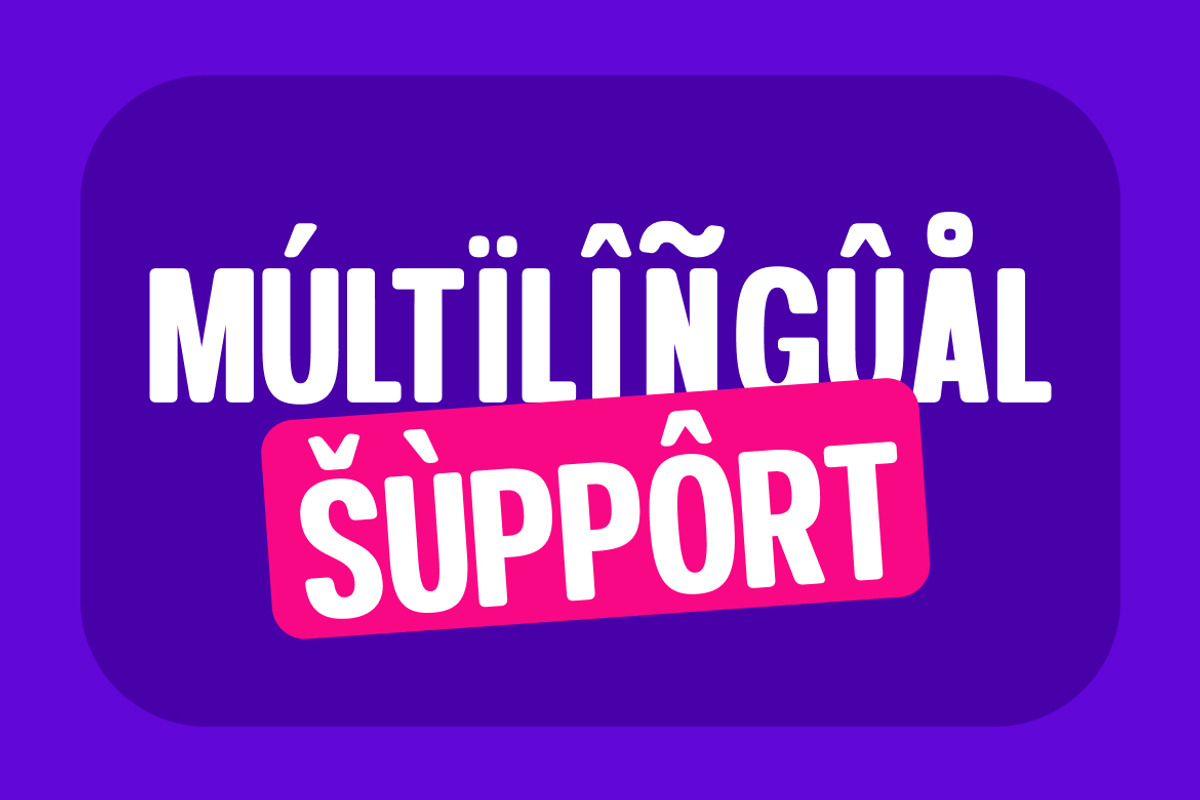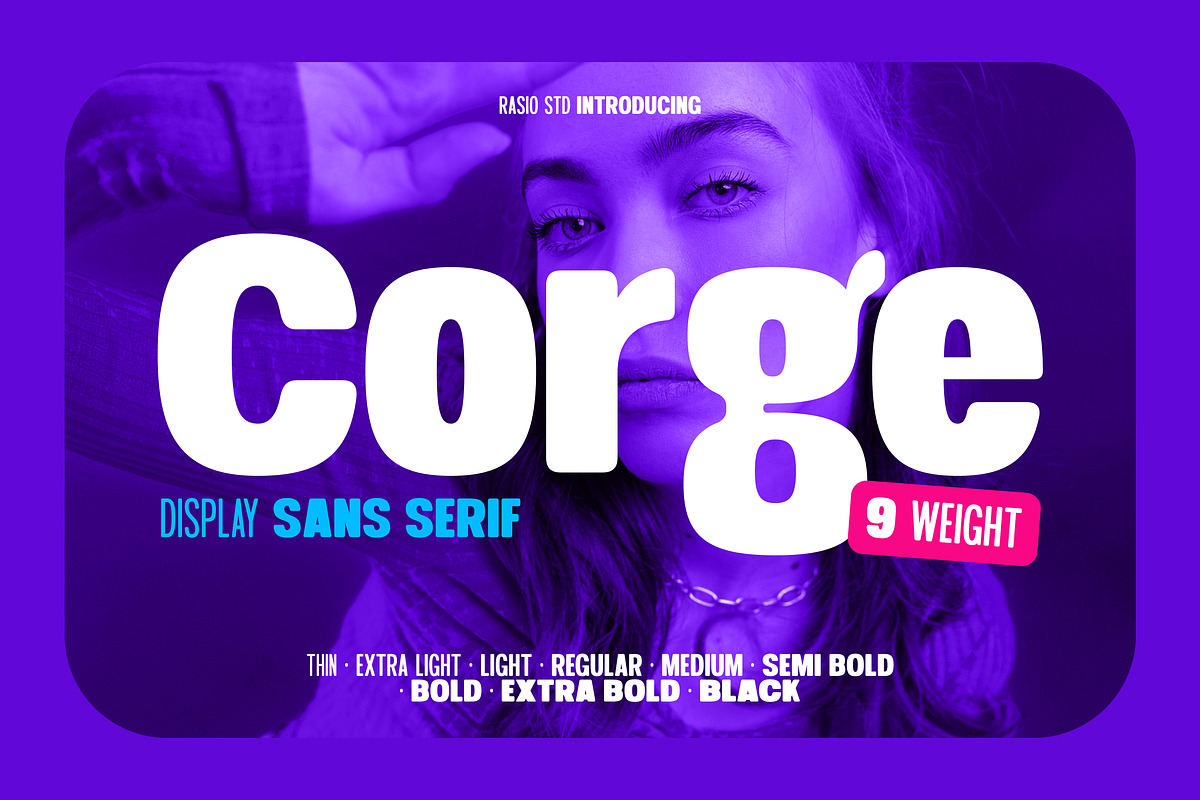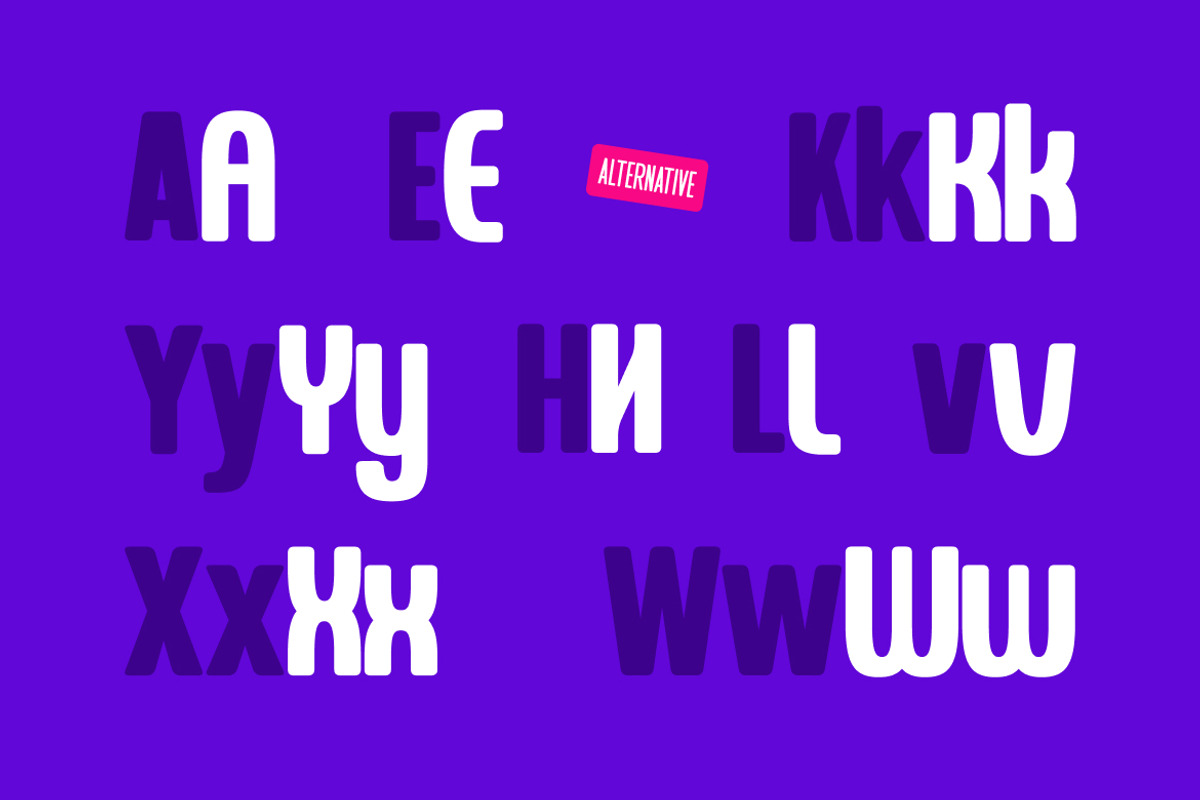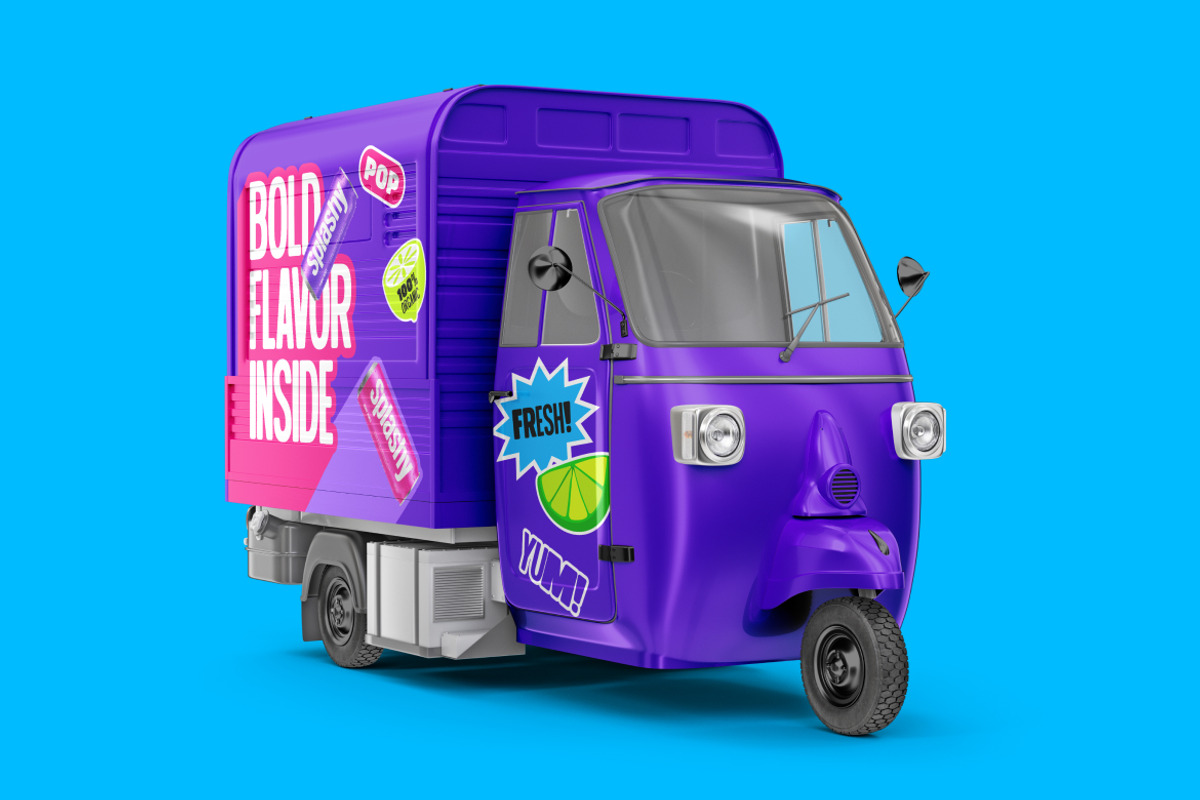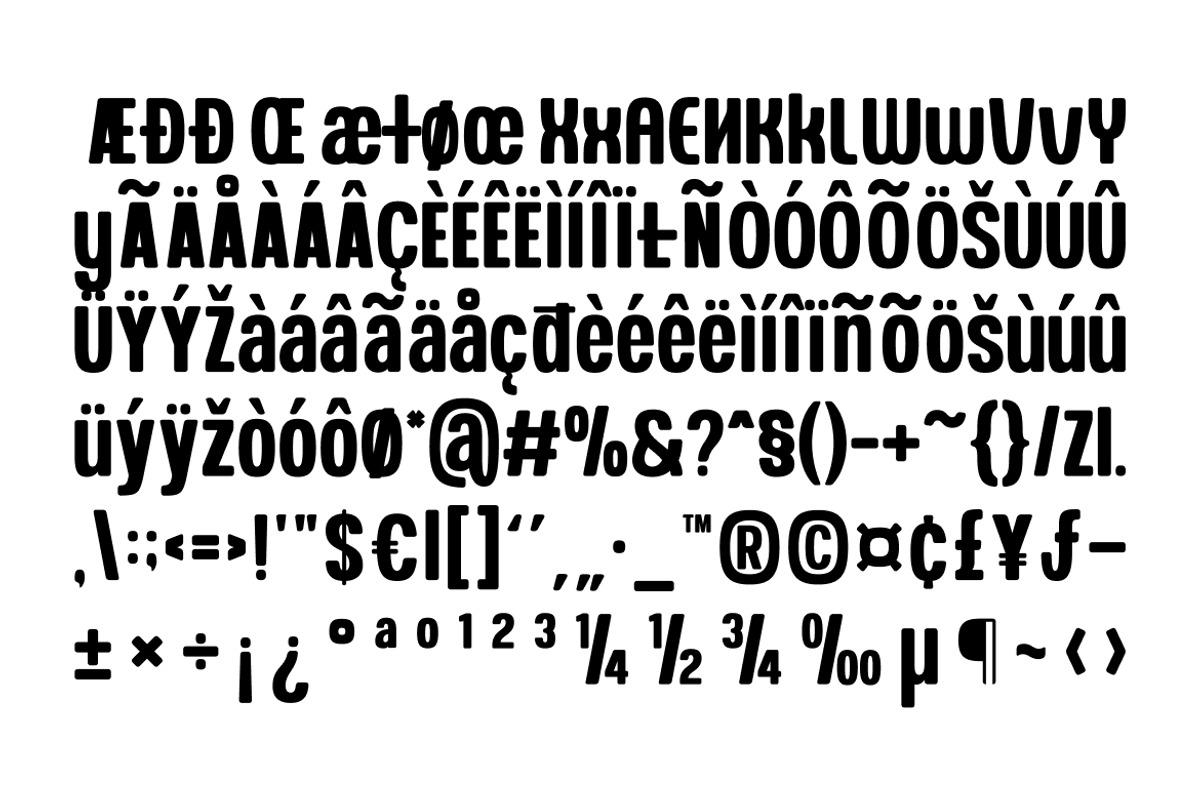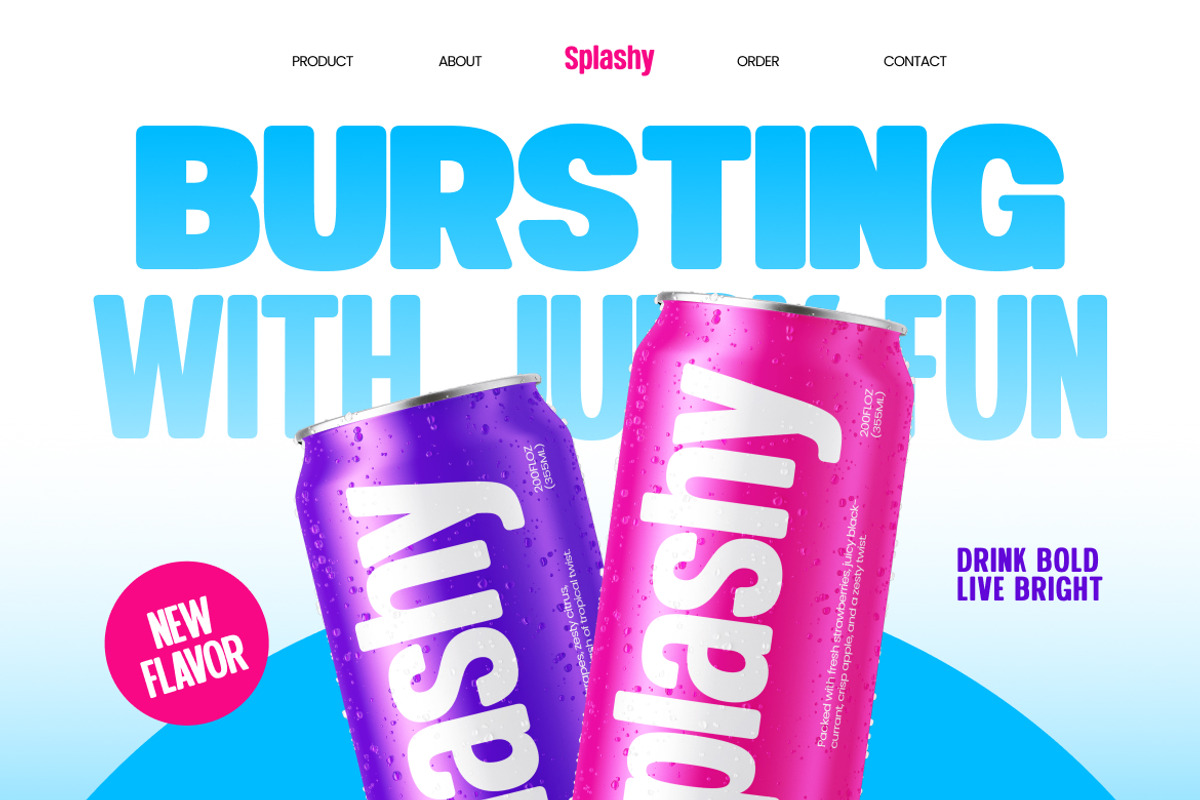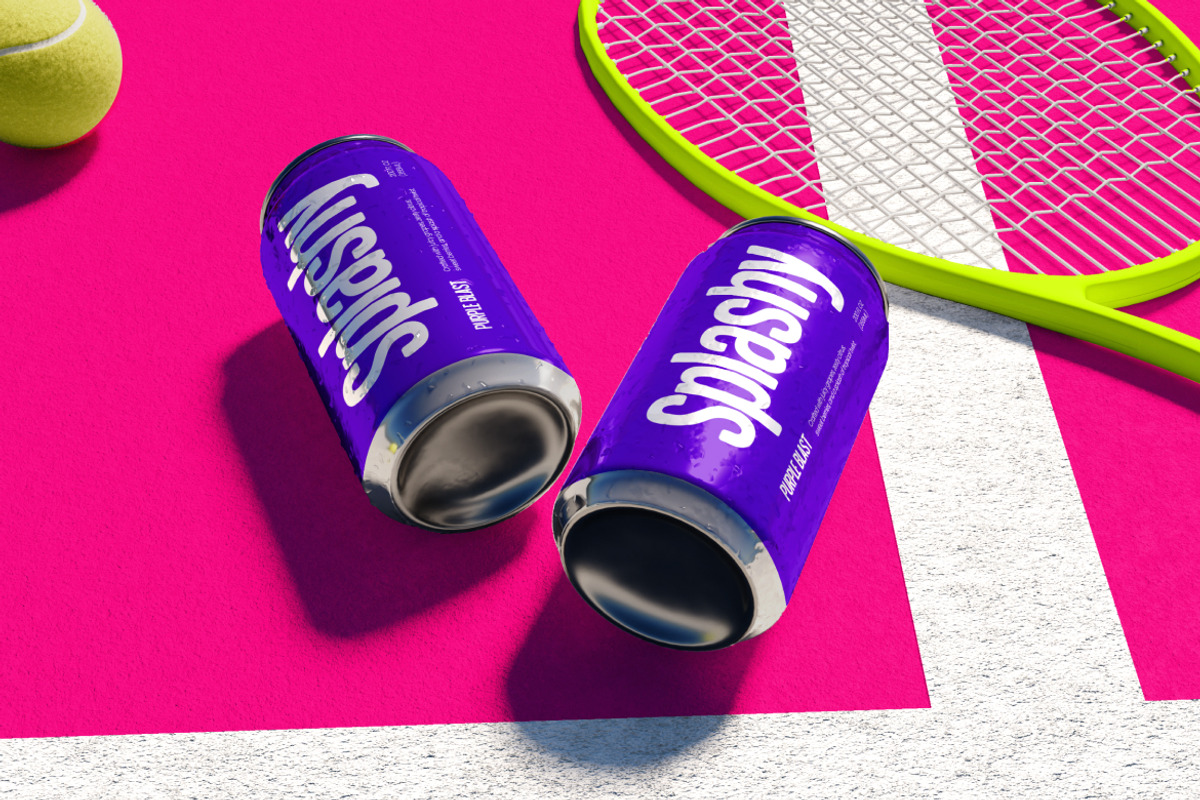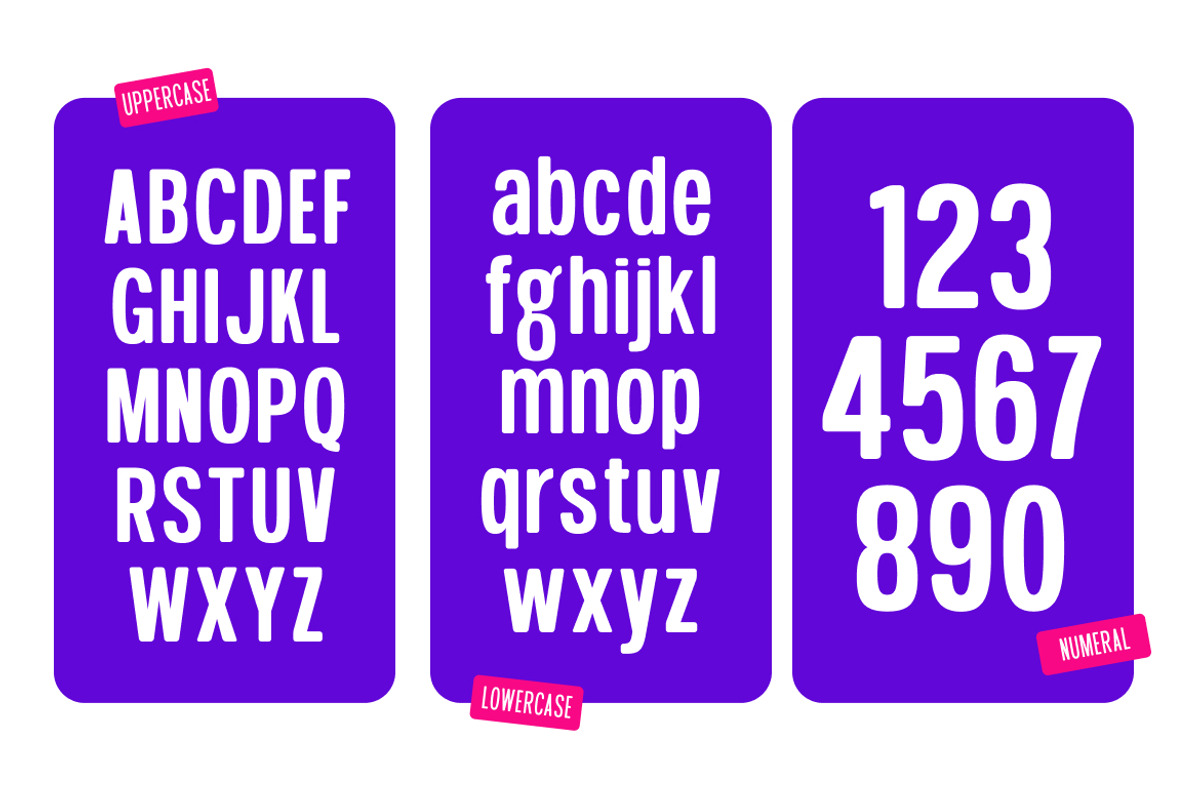
Corge Display Sans Serif Font
Corge is a modern display sans serif font featuring bold rounded forms and a strong visual presence. The file includes a complete character set with uppercase, lowercase, numerals, and essential punctuation, along with 9 font weights ranging from Thin to Black. Designed with smooth curves and balanced proportions, it delivers a clean, contemporary aesthetic suitable for high-impact typography.
Relevance and Use Cases is perfect for branding projects, logo design, bold headlines, advertising campaigns, social media graphics, editorial layouts, web design, mobile apps, product packaging, posters, and modern corporate identities where strong and clean typography is essential.
Bold rounded sans structure with soft geometric proportions
Smooth curves and circular forms for a friendly modern feel
Balanced stroke weight across all characters for visual consistency
Slightly condensed width to maximize space efficiency in headlines
Clean minimal details with high legibility across multiple weights
Branding and identity design that require bold, modern, and approachable visuals
UI/UX interfaces, dashboards, and mobile apps with clean and readable typography
Posters, headlines, and advertising layouts that need strong visual impact
Social media content, digital campaigns, and creative marketing materials
Packaging design and product labels with a contemporary and minimal style
Screen-optimized kerning for responsive web design
Supports numerals, punctuation, and extensive symbol set